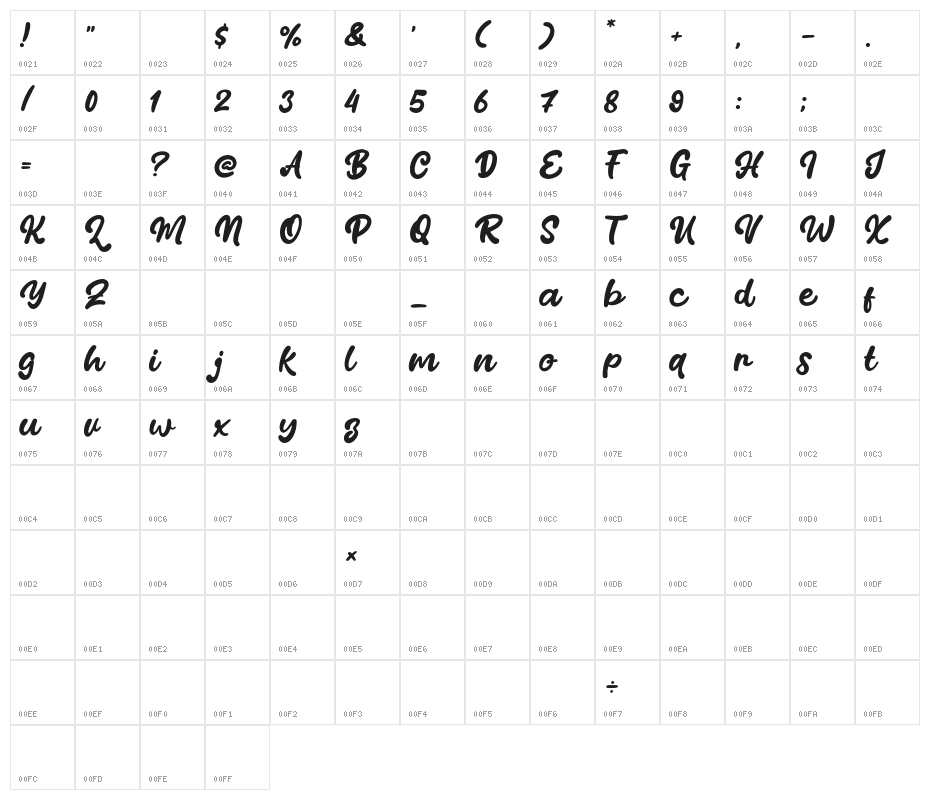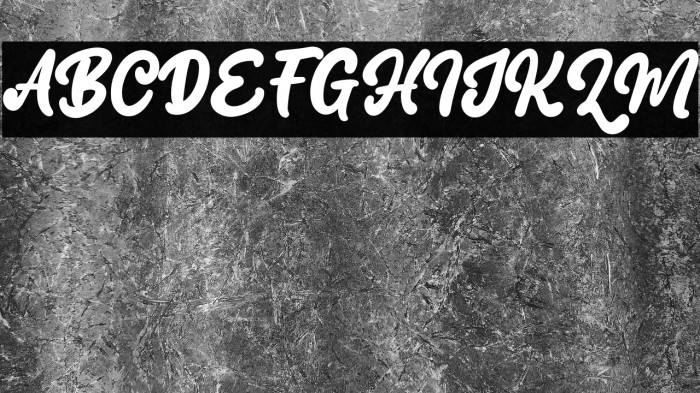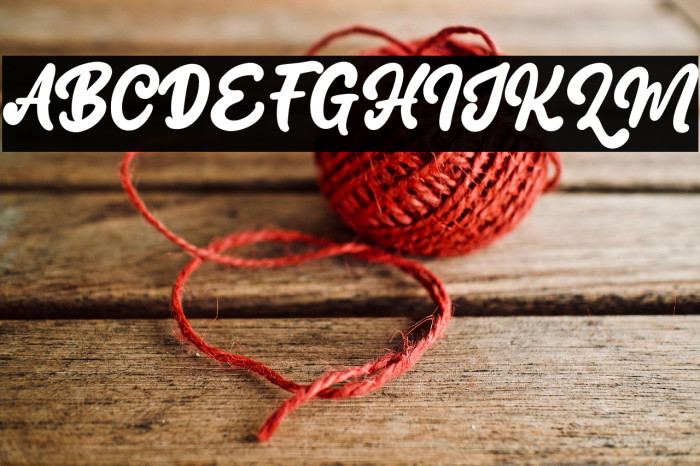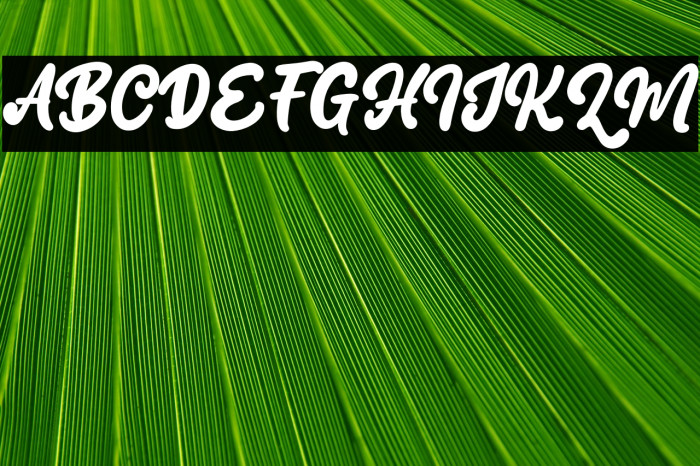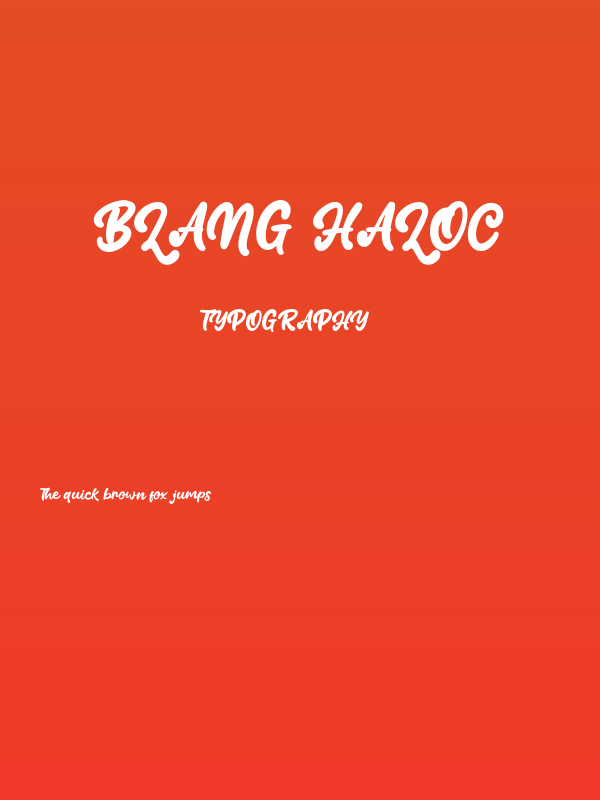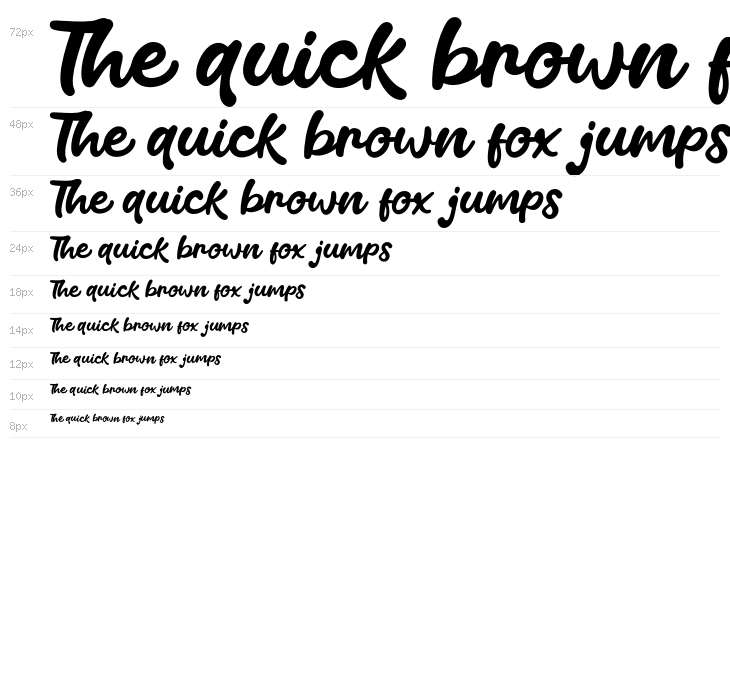
Blang Haloc Font
Blang Haloc Description
This font features a bold, flowing script style that exudes a sense of elegance and dynamism. The characters are interconnected, creating a seamless and fluid appearance. The uppercase letters are slightly more ornate, while the lowercase letters maintain a consistent and harmonious flow. The numerals and special characters are designed to match the overall aesthetic, ensuring a cohesive look across all text. The font's bold weight and medium contrast make it highly legible, while the wide character spacing adds to its readability. This style is perfect for making a statement with its eye-catching and artistic flair.
| Overall Style | Elegant, Decorative |
| Use Case | Logos, Invitations, Headlines |
| Proposed Projects | Ideal for wedding invitations, branding, logo design, and elegant signage. |